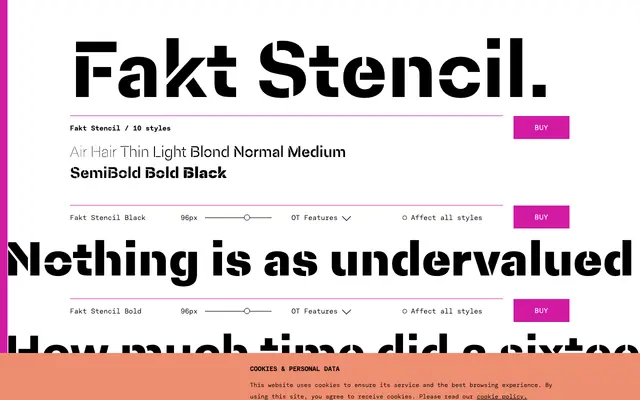
Fakt Stencil
A stencil adaptation of a geometric grotesque spanning ten weights from Air to Black, with an unusually fine lower end of the weight range.
Ten weights running from the extremely light Air and Hair through to Black make this one of the more thorough stencil families available. The underlying letterforms follow a clean geometric grotesque structure, with stencil bridges applied consistently across the weight range. An extensive set of OpenType features includes oldstyle figures, stylistic alternates and 19 stylistic sets, suggesting careful attention to typographic detail beyond the display context.
A stencil variant of a geometric grotesque, with interrupted strokes characteristic of stencil lettering. The underlying structure is a clean sans-serif, but the stencil interruptions push it firmly into the display category.